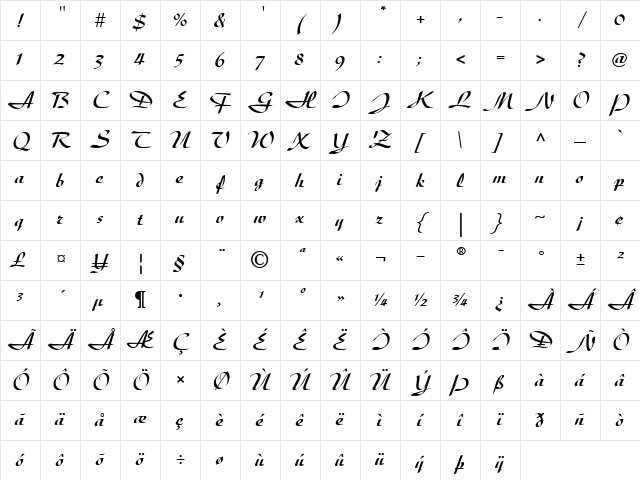
Diskus BoldItalic Free Font
Diskus BoldItalic
Design Context for Diskus
Diskus is a composed and adaptable typeface that performs quietly and consistently across a wide range of design contexts. The slanted form adds forward momentum and visual energy. Its bold stroke weight gives it real presence on the page.